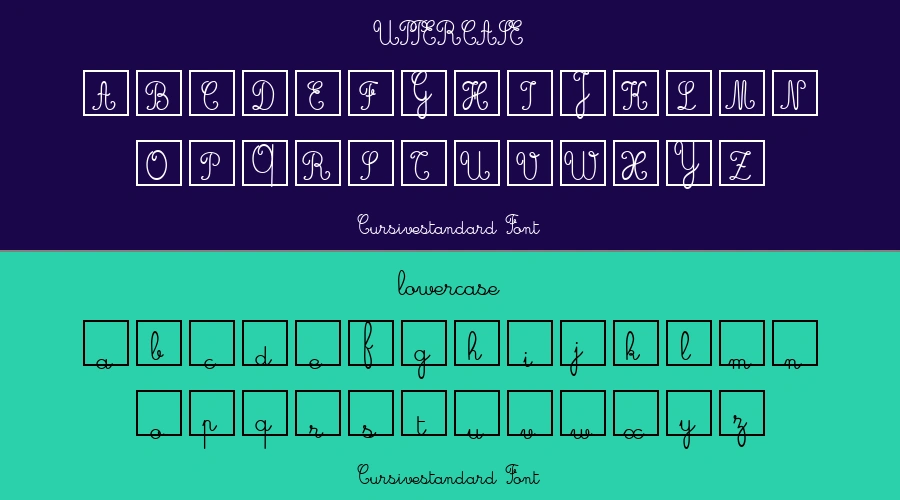
About Cursivestandard Font
Cursivestandard Font embodies typographic excellence through its masterful combination of rhythmic patterns and page color. Created for wayfinding systems, this typeface delivers exceptional flexibility and adaptability across all applications. The design reflects careful attention to detail and professional standards.
Advanced capabilities include distinctive calligraphic strokes and versatile decorative caps, giving designers creative control. When used in image captions, Cursivestandard Font exhibits remarkable format conversion. The harmonious balance between bowl width and market position sets this typeface apart.